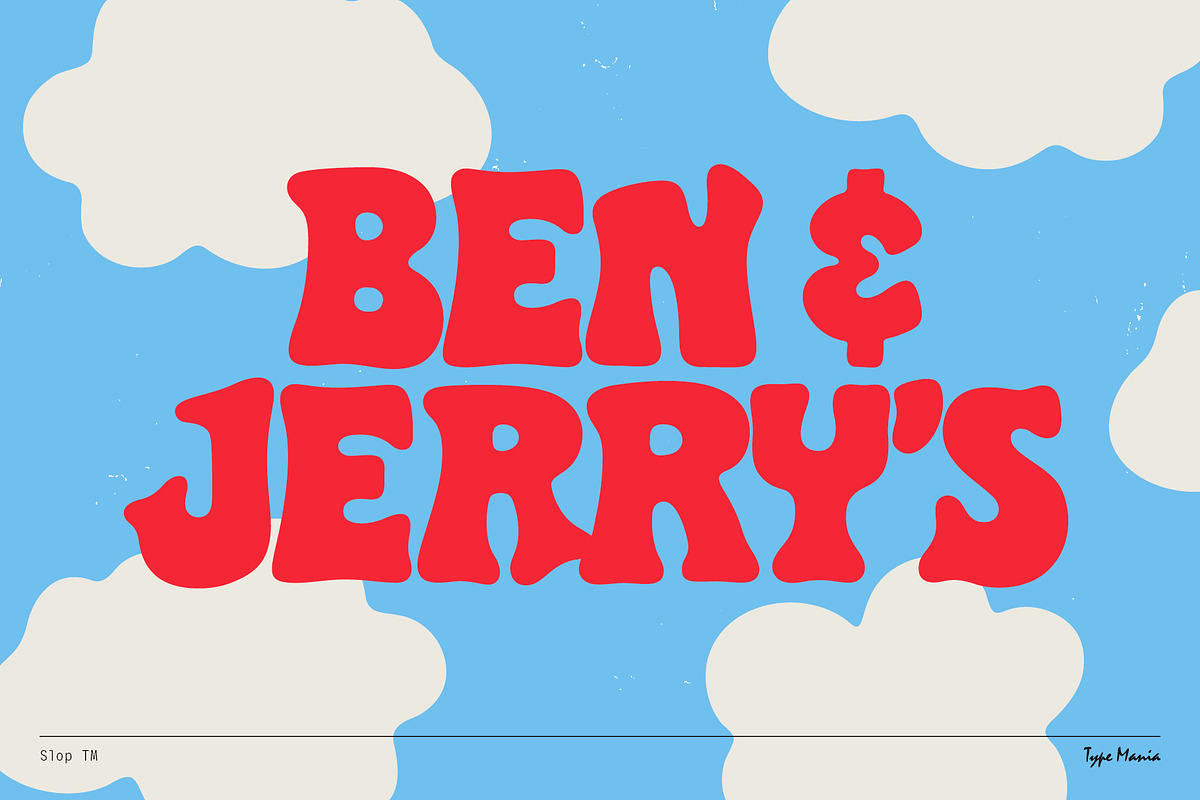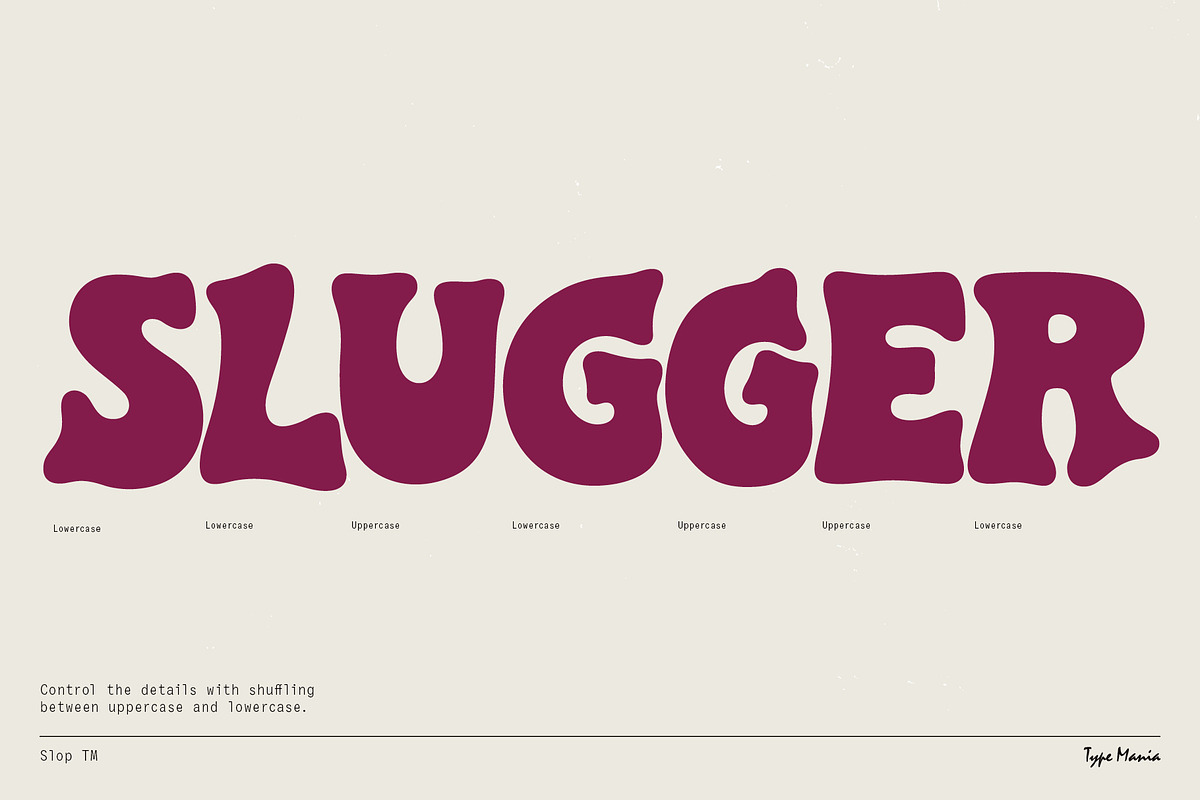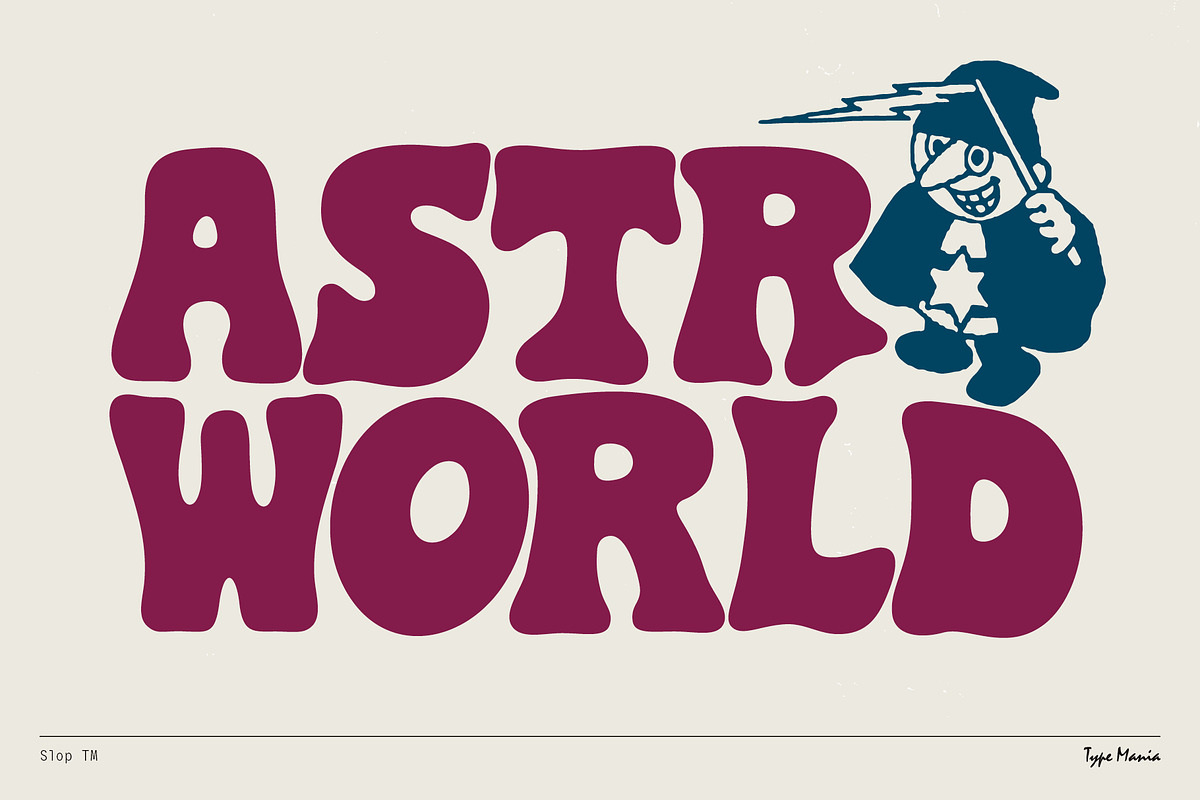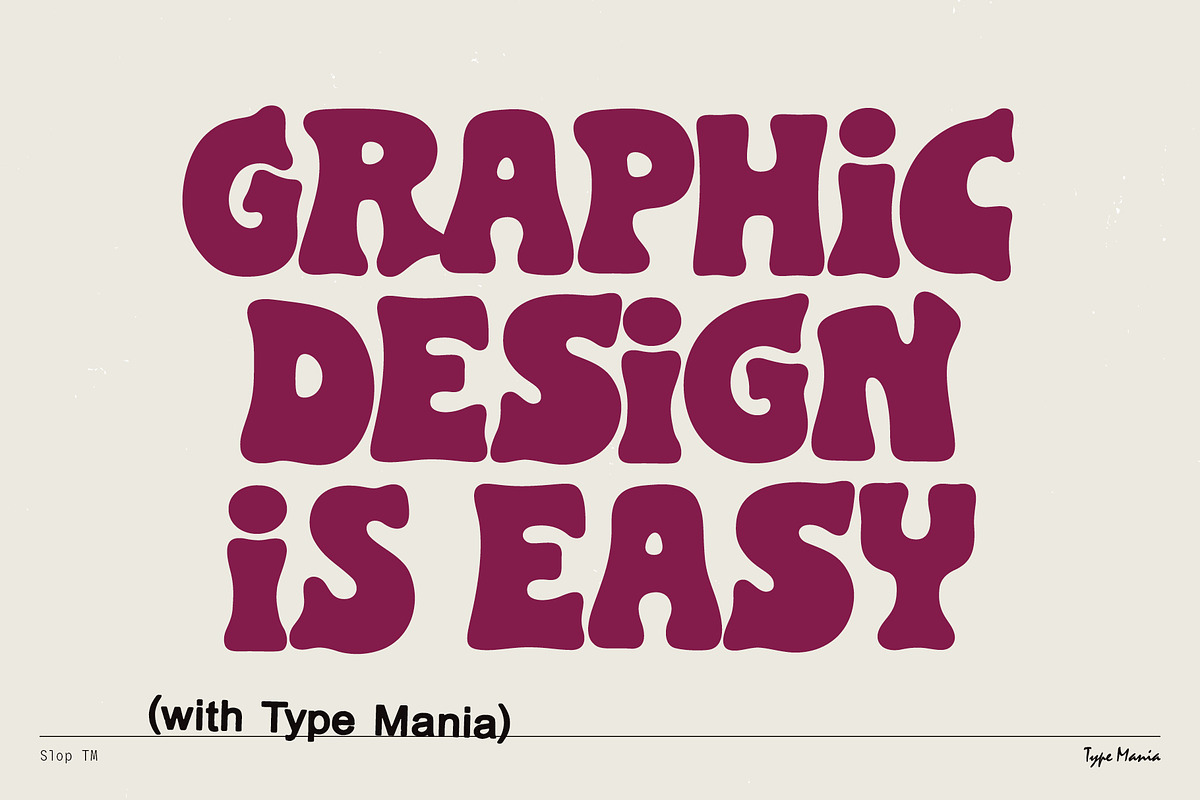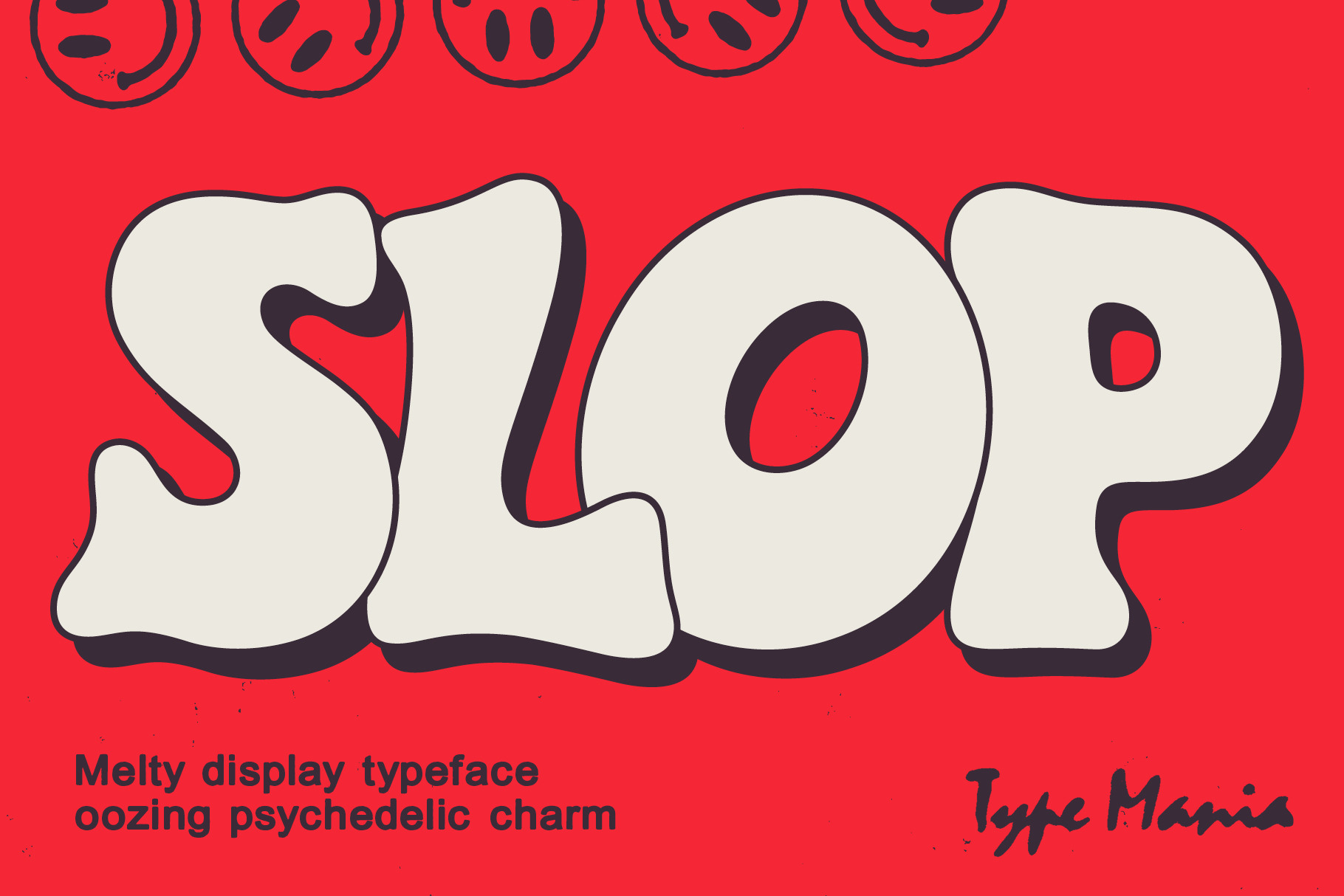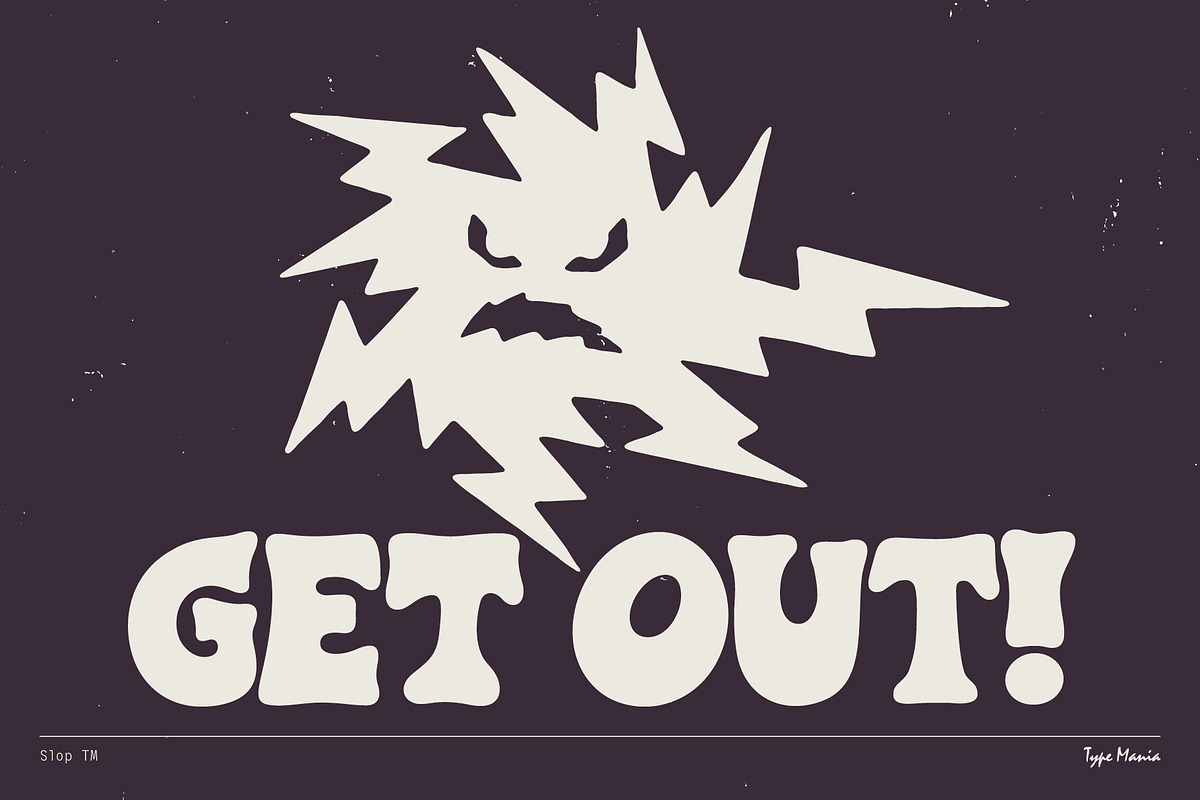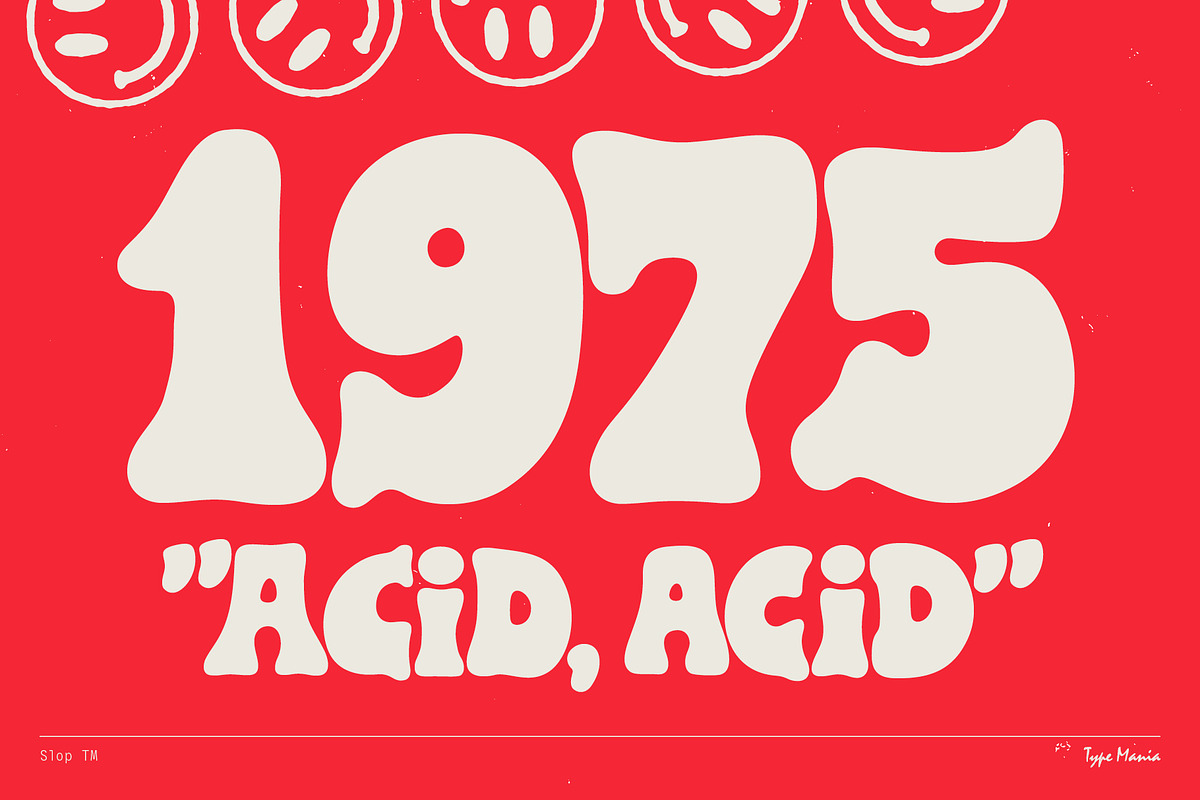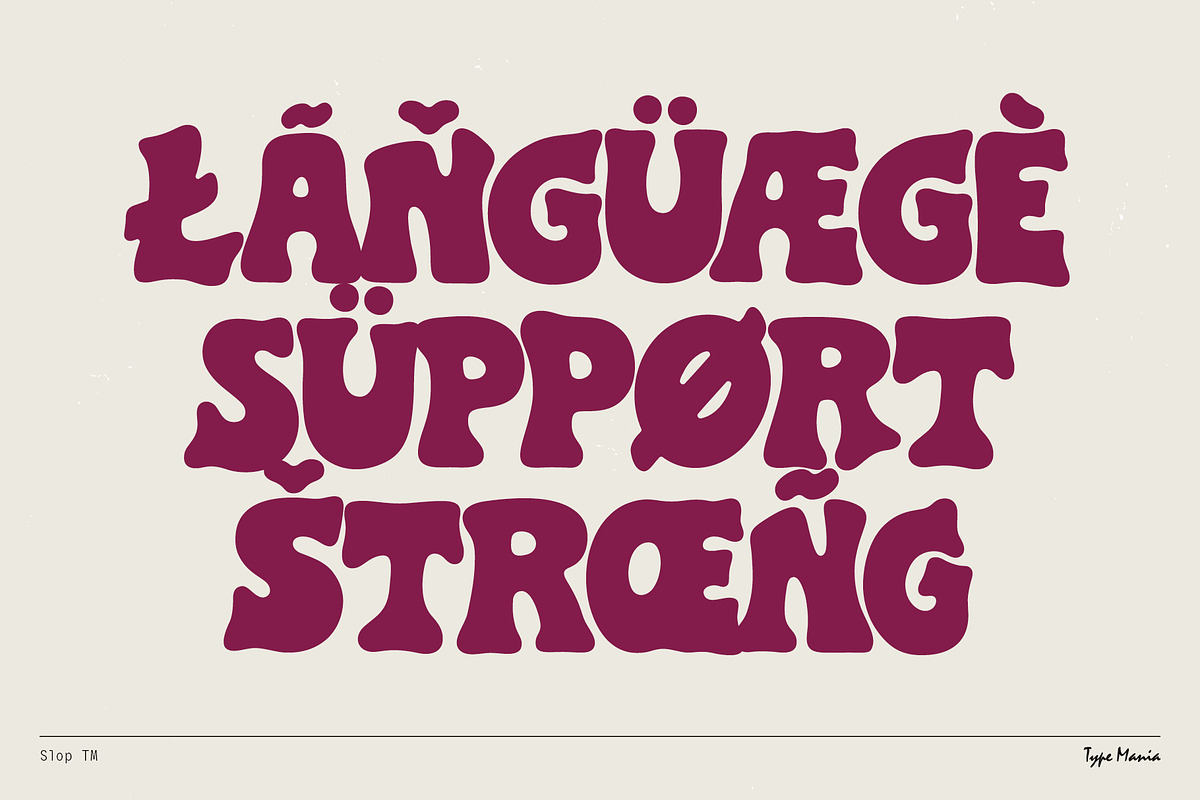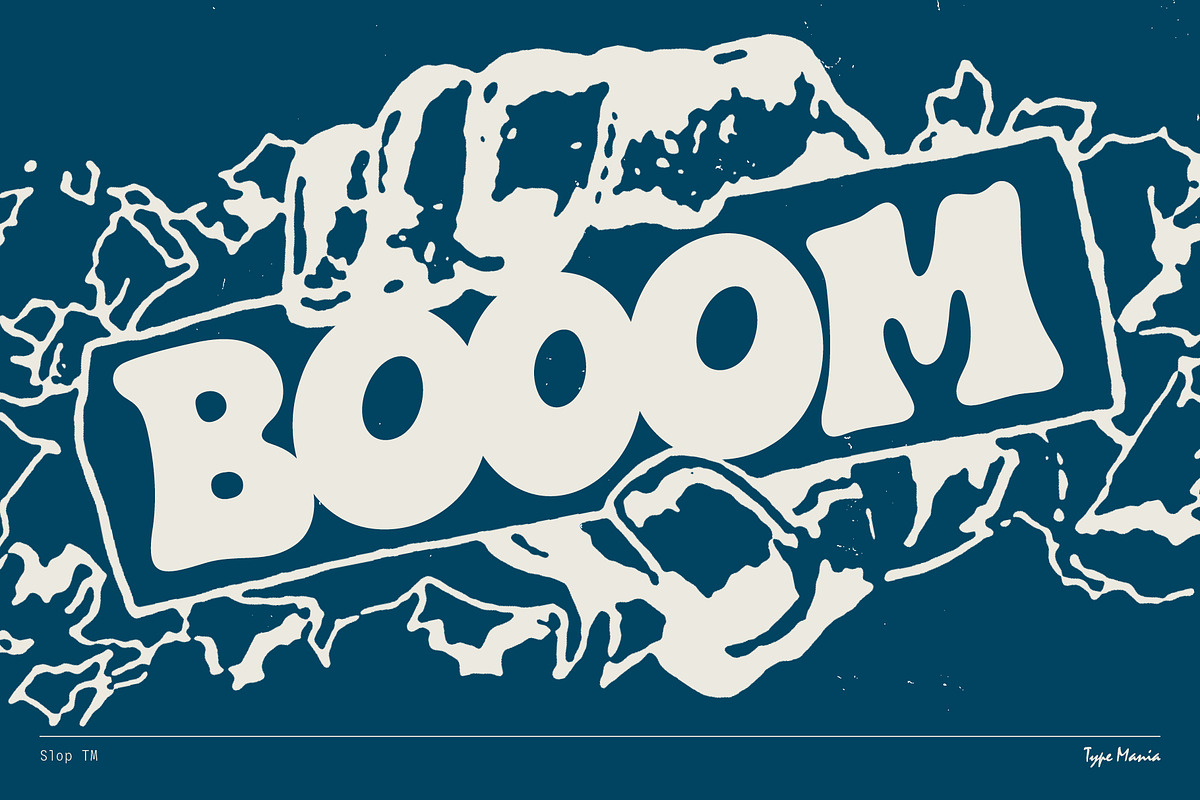
Slop TM – Melting Bubble Font
Slop TM – a chunky, melty display typeface that oozes psychedelic charm. Built to stand out in posters, branding, and bold editorial work 🫡🫡